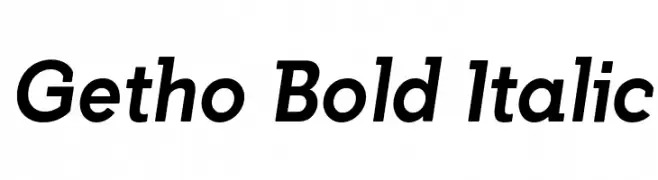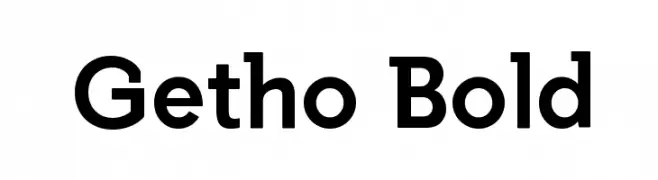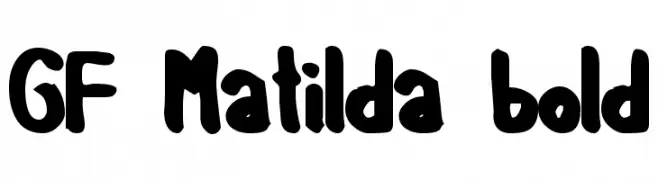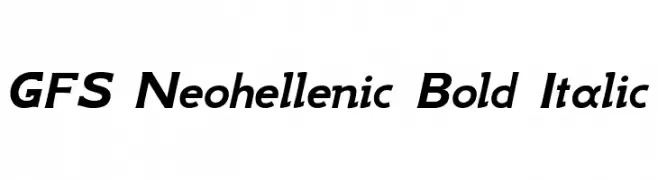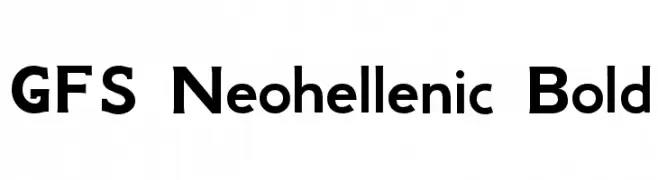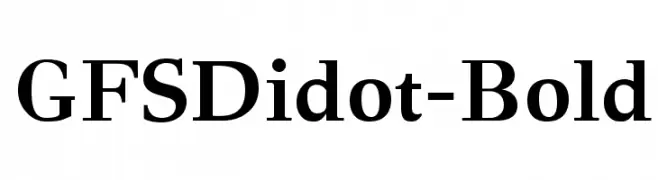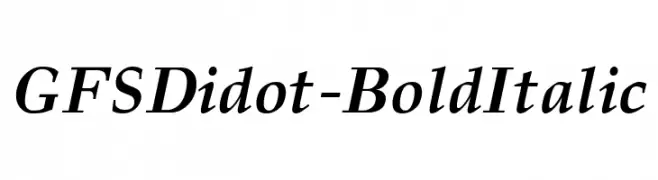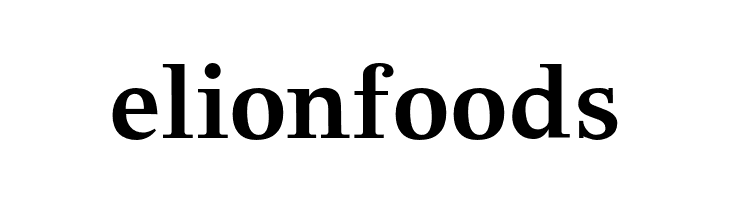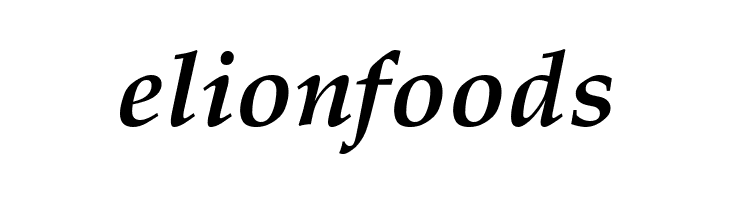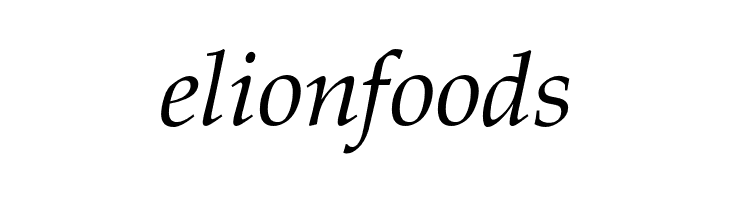
• Getho Bold
• Getho Bold Italic
• GF Matilda bold
A bold, playful font with thick, rounded strokes and a hand-drawn feel.
• GFS Neohellenic Bold
A bold, modern typeface with geometric shapes and consistent stroke width.
• GFS Neohellenic Bold Italic
A bold, italicized font with a modern and dynamic style.
• GFSDidot-Bold
A classic serif font with high contrast and elegant design.
• GFSDidot-BoldItalic
An elegant, high-contrast serif font with italic styling.
• GFSDidot-Italic
An elegant serif font with a classic italic style and high contrast strokes.
• GFSNeohellenic-Bold
A bold, modern sans-serif font with clean lines and strong visual impact.
• GFSNeohellenic-BoldItalic
A bold italic font with a modern and elegant style, perfect for impactful designs.